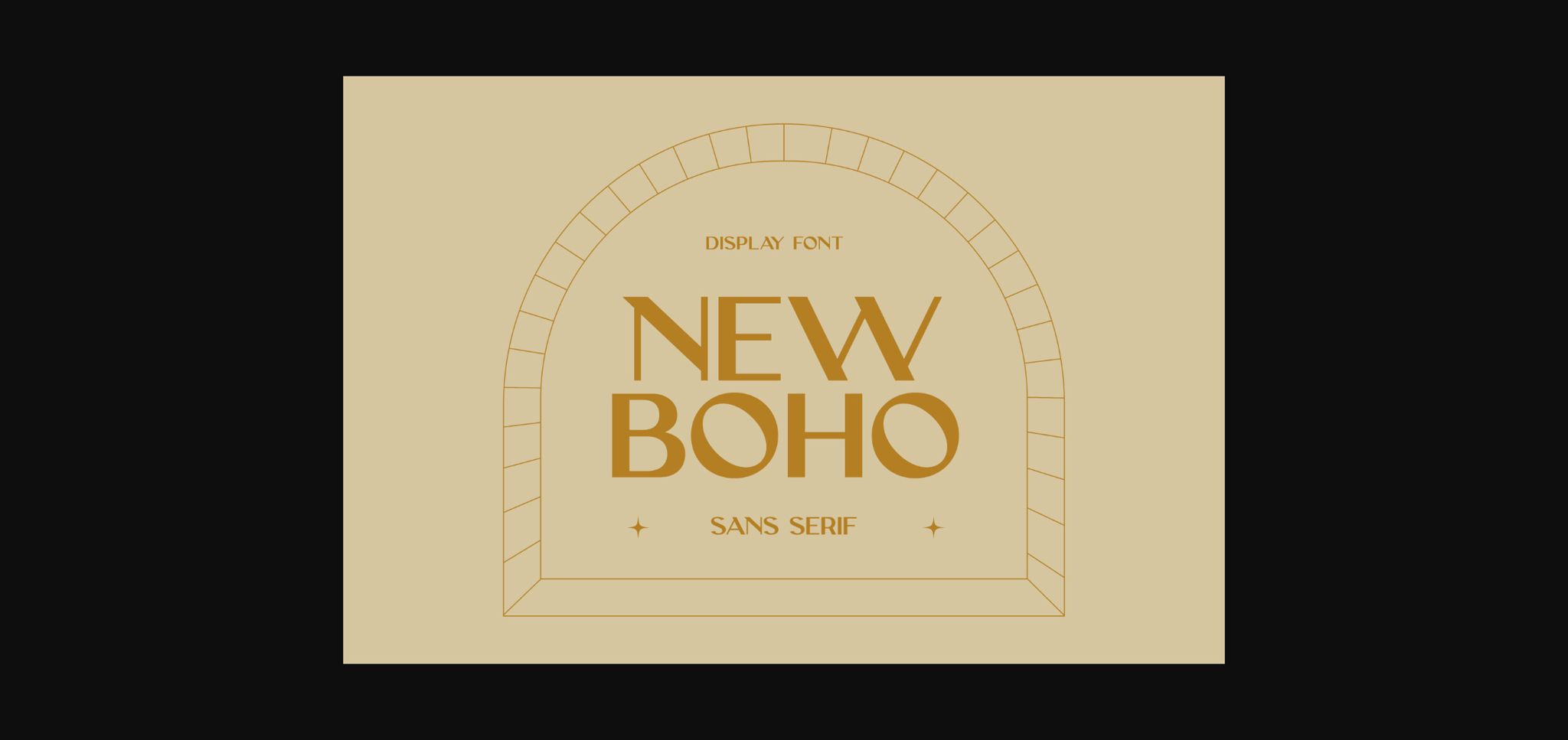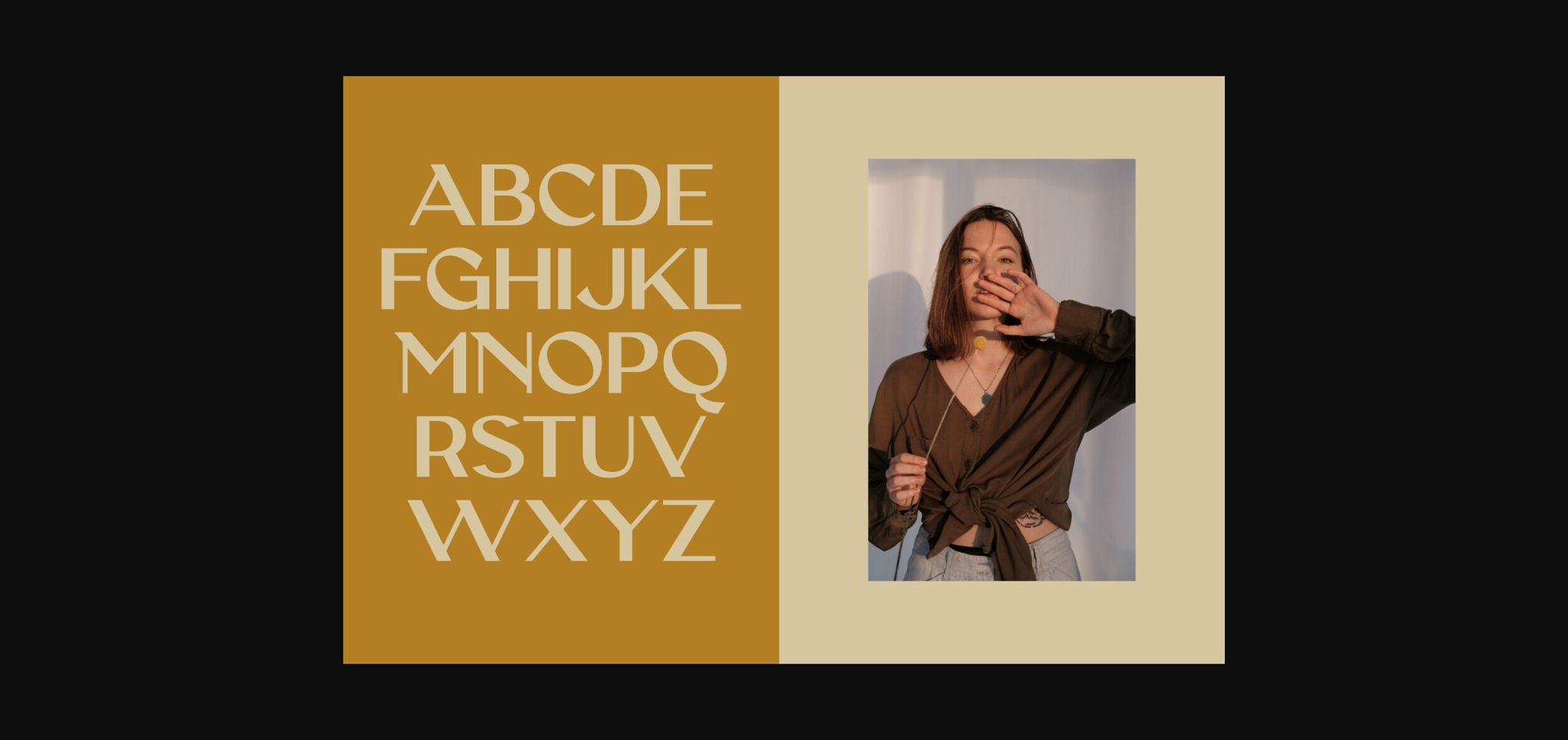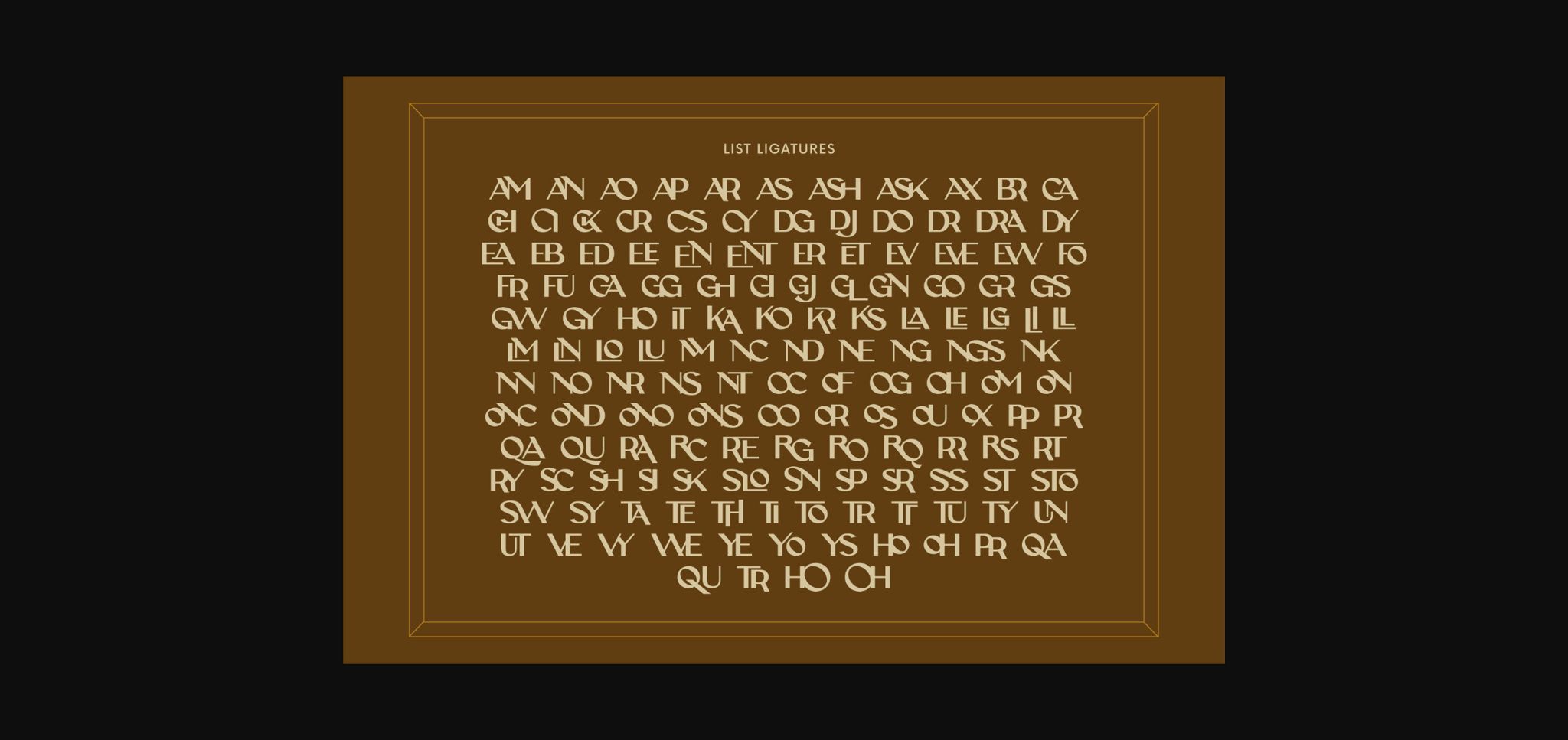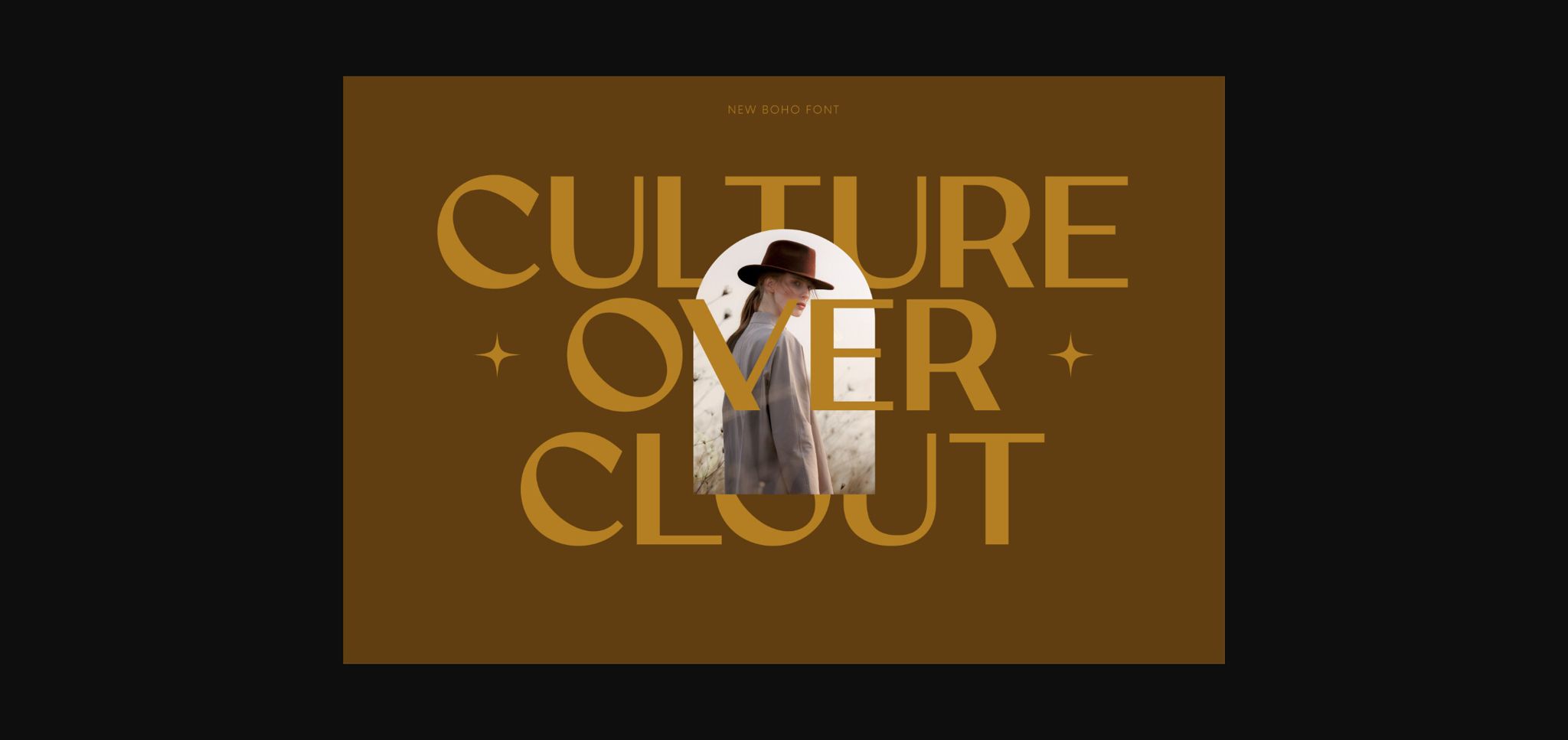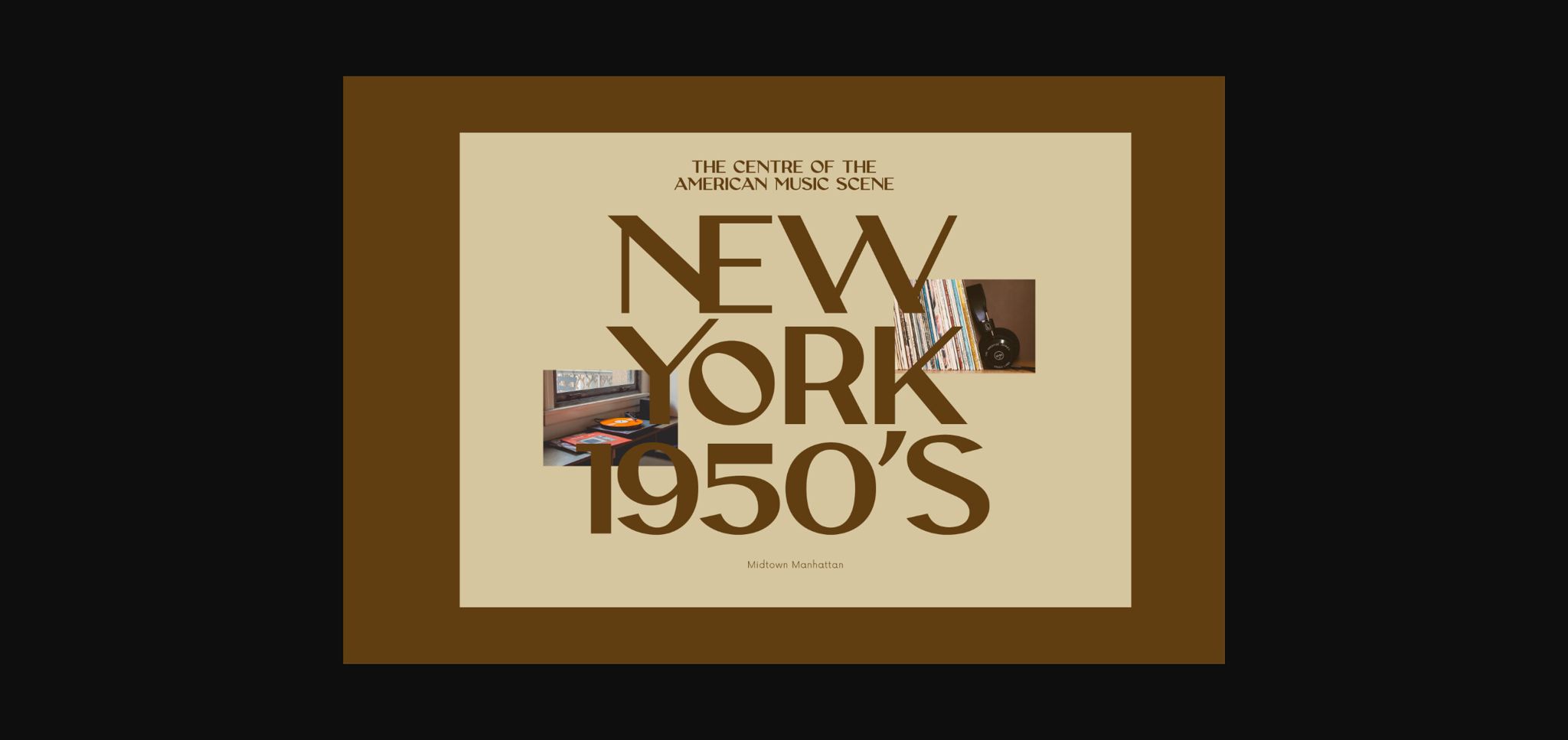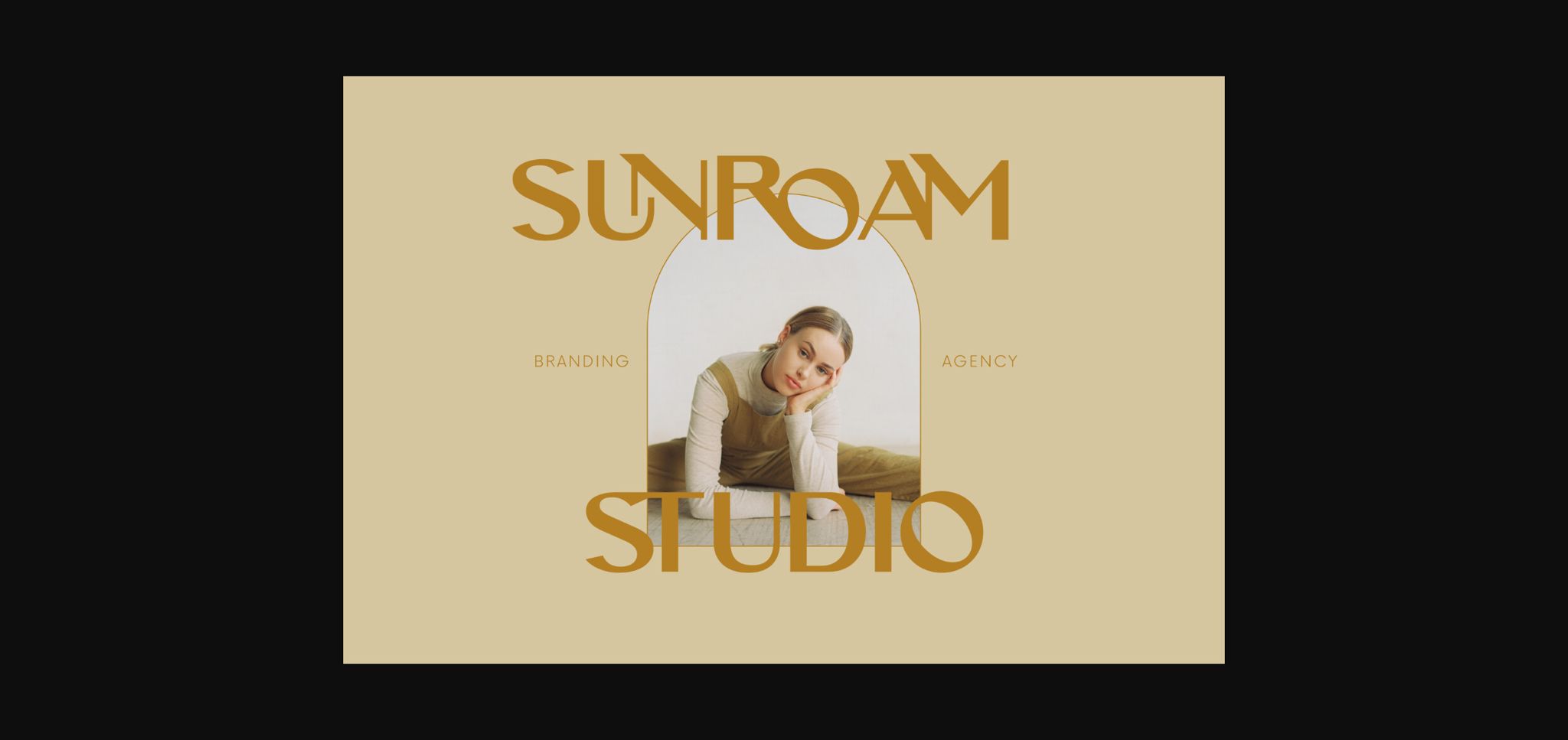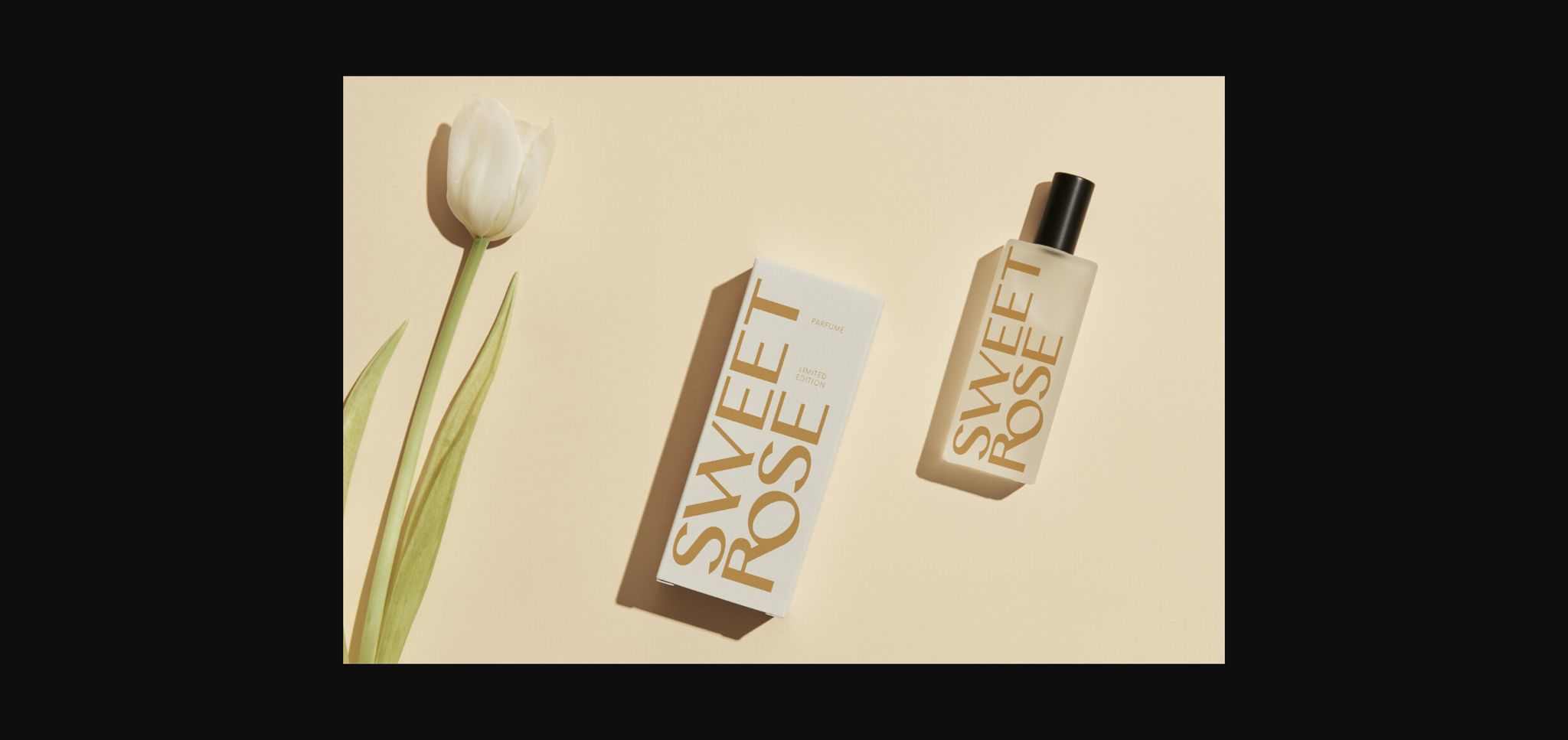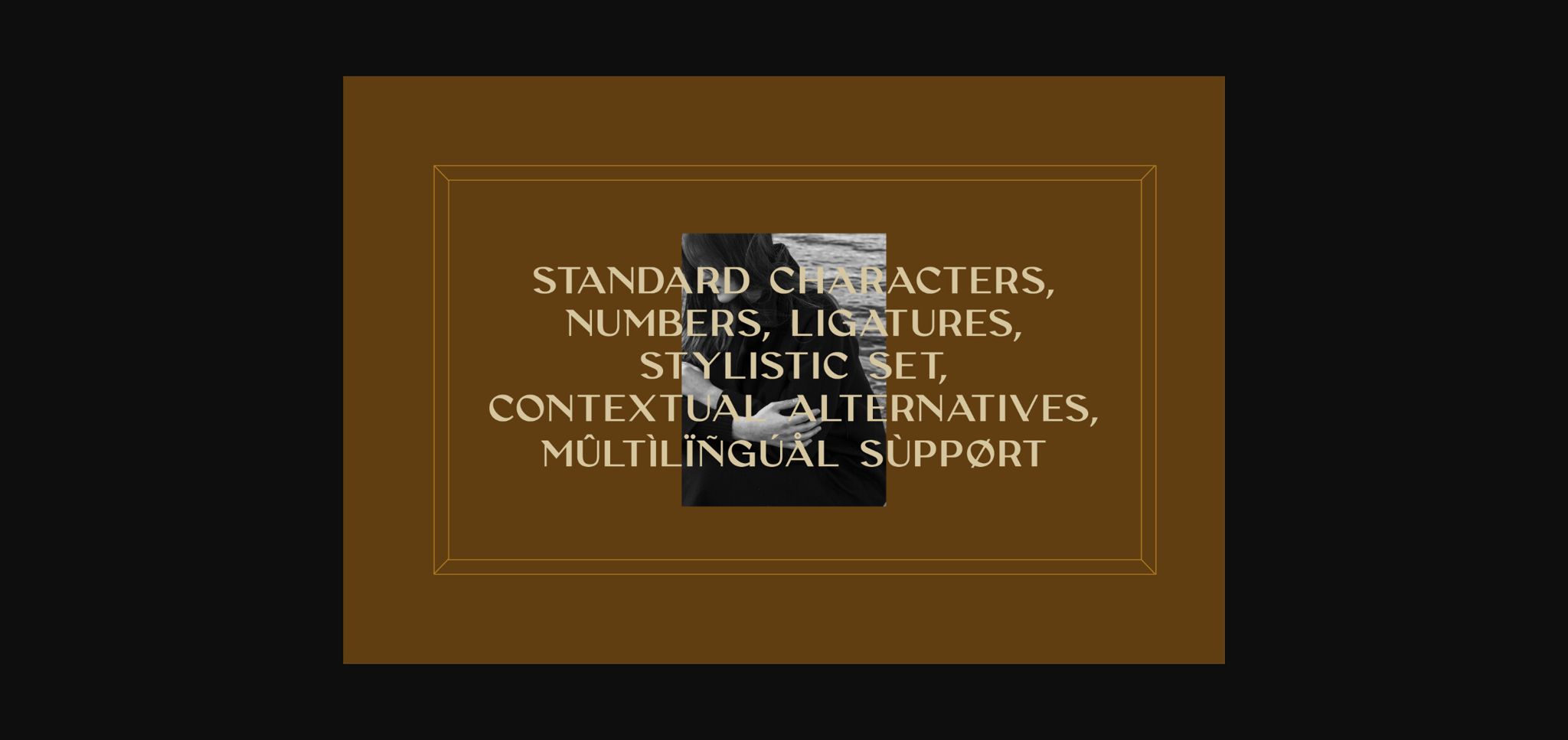
New Boho Font
About New Boho Font
New Boho is a unique off-balance sans serif display font. Its huge set of attractive ligatures will allow you to create really striking type designs. New Boho will provide your work with a whimsical element while also being quite elegant.
This font lends itself well to projects like branding & logo design, web headers & hero overlays, content creation, & much more.